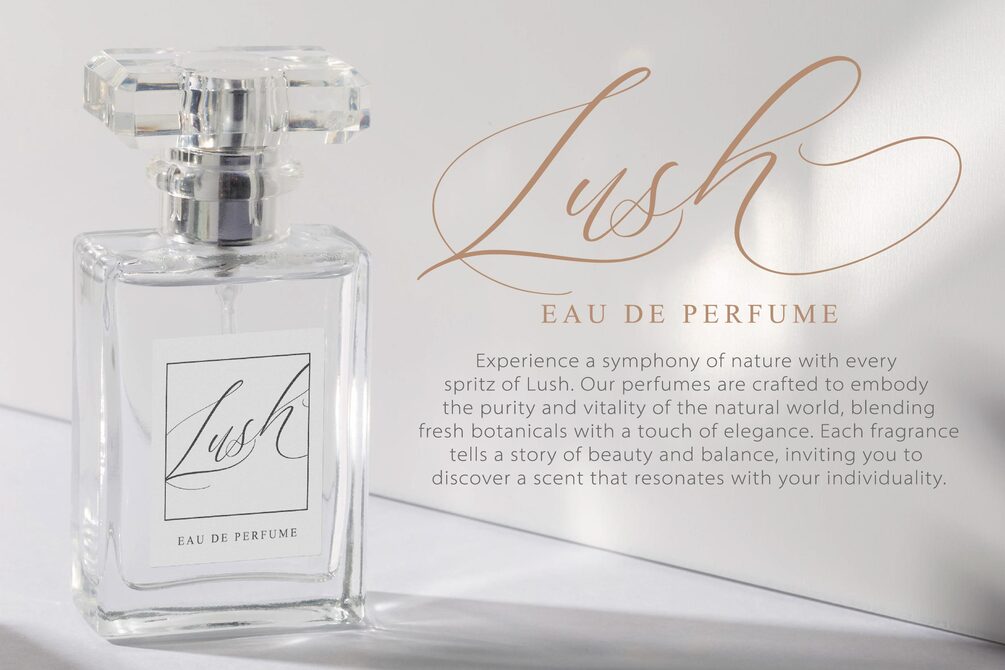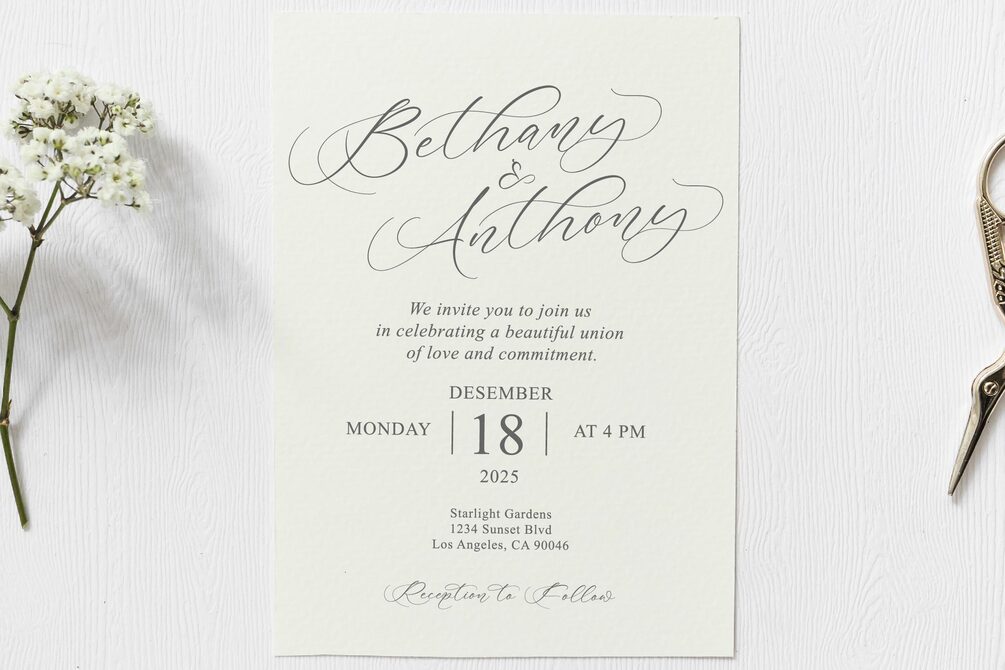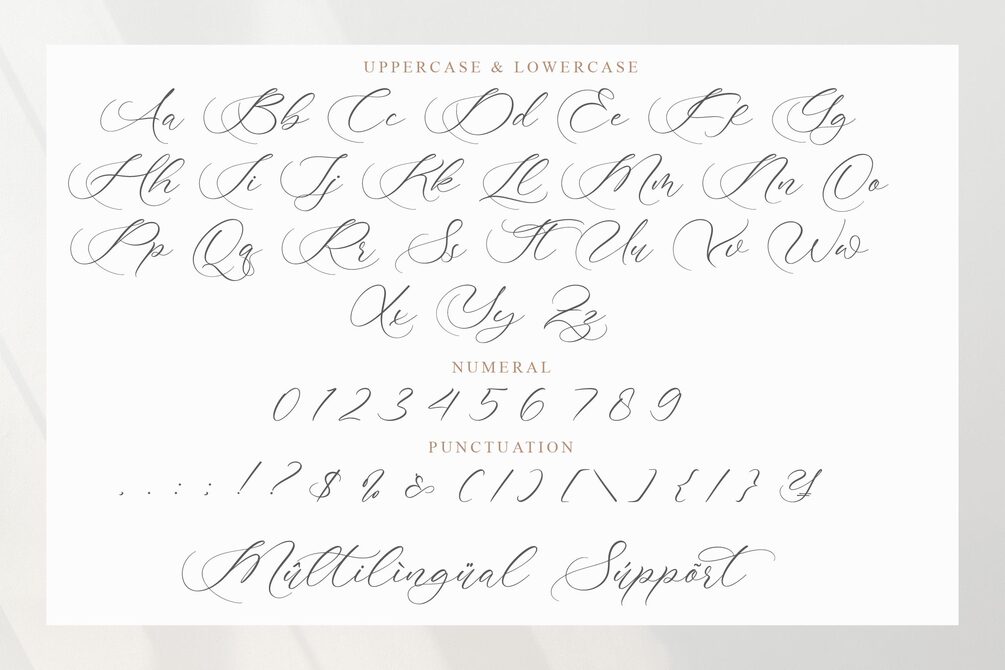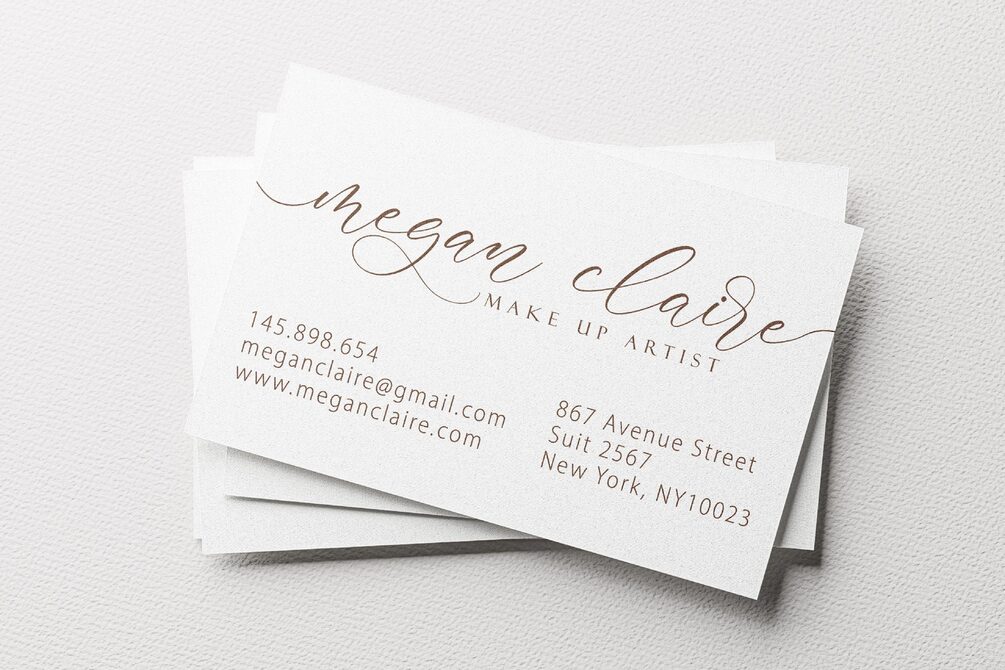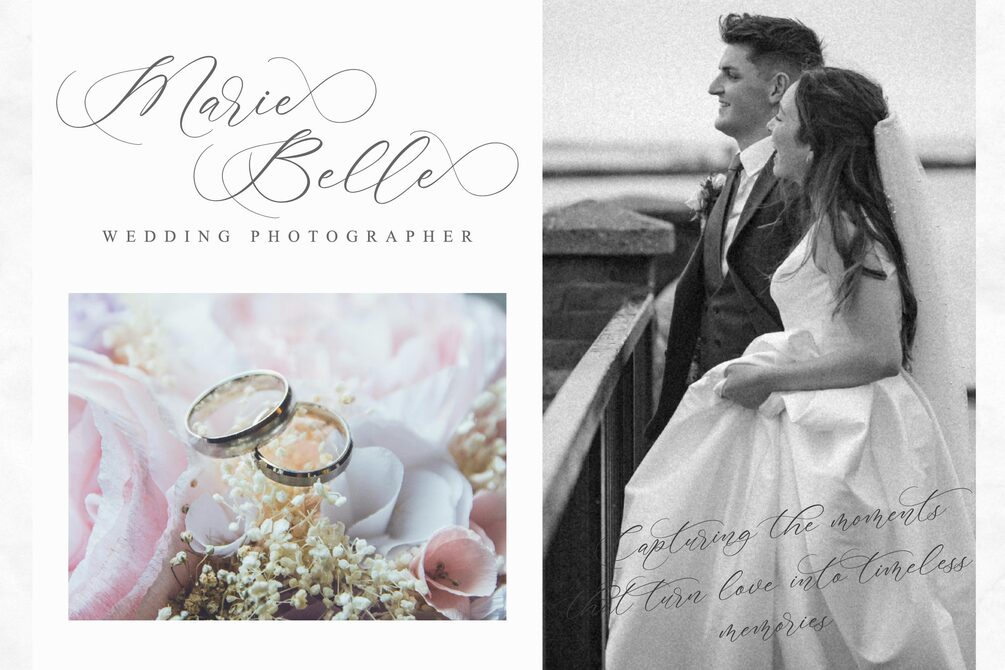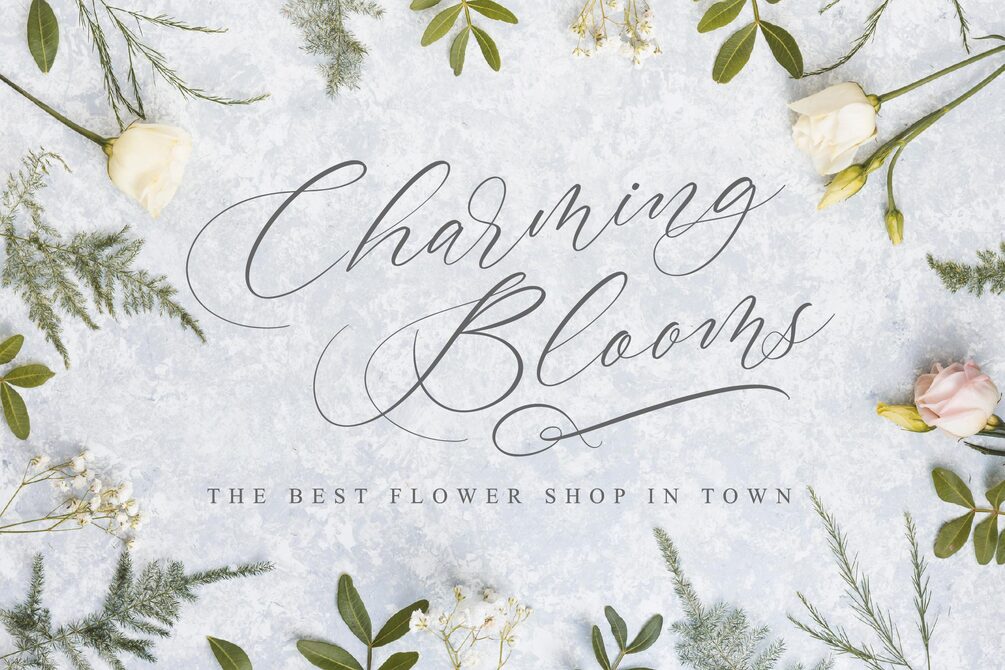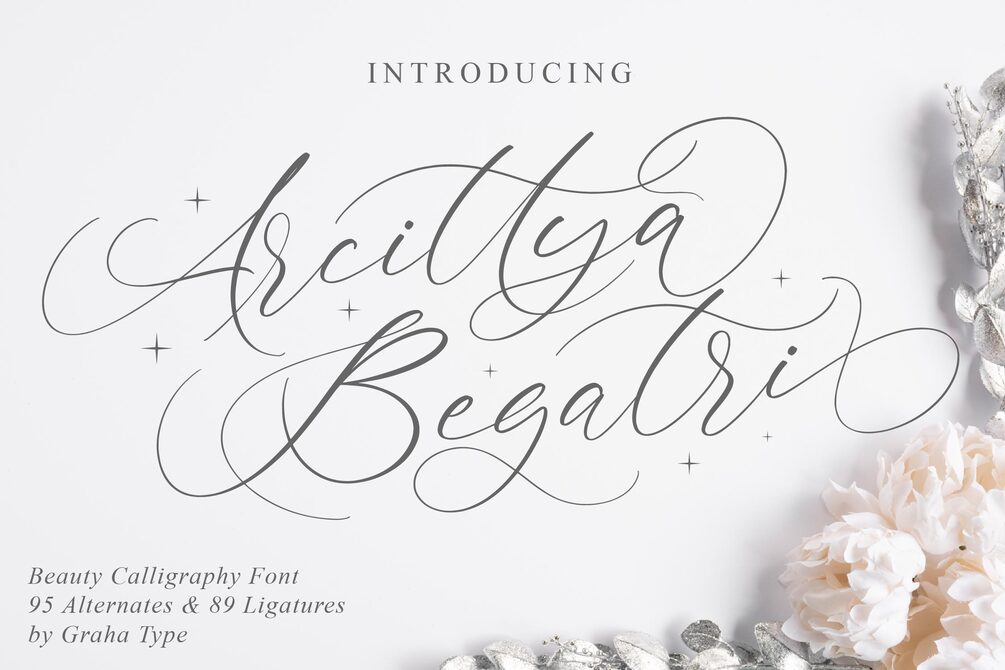
Arcittya Begatri - Beauty Calligraphy Font
Arcittya Begatri is a beauty calligraphy font designed to elevate the elegance and sophistication of your designs. With its unique and fluid flow, this font is perfect for invitations, logos, branding, and more, enhancing the quality of your design projects.